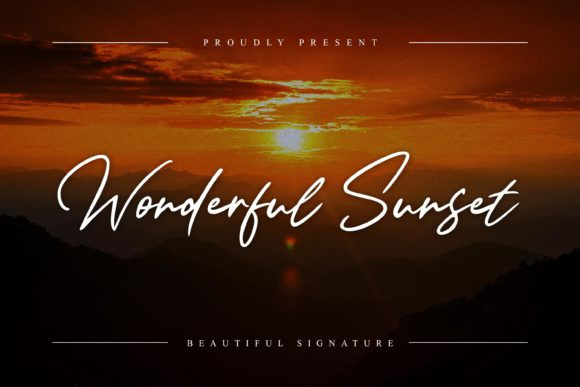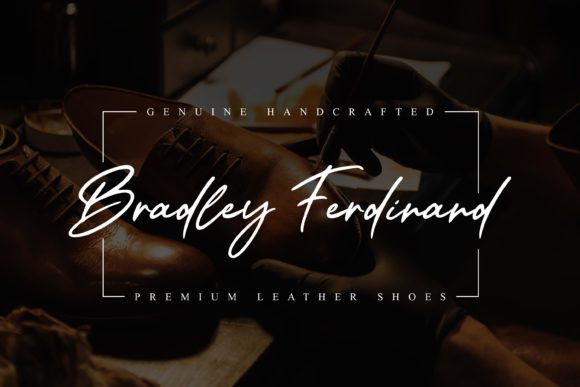
Wonderful Sunset Font
Wonderful Sunset is an elegant script font with a contemporary atmosphere and impeccable form, inspired by timeless classic calligraphy. Not too thin and not too thick, balanced and varied, Wonderful Sunset was designed to enhance the beauty of your projects.